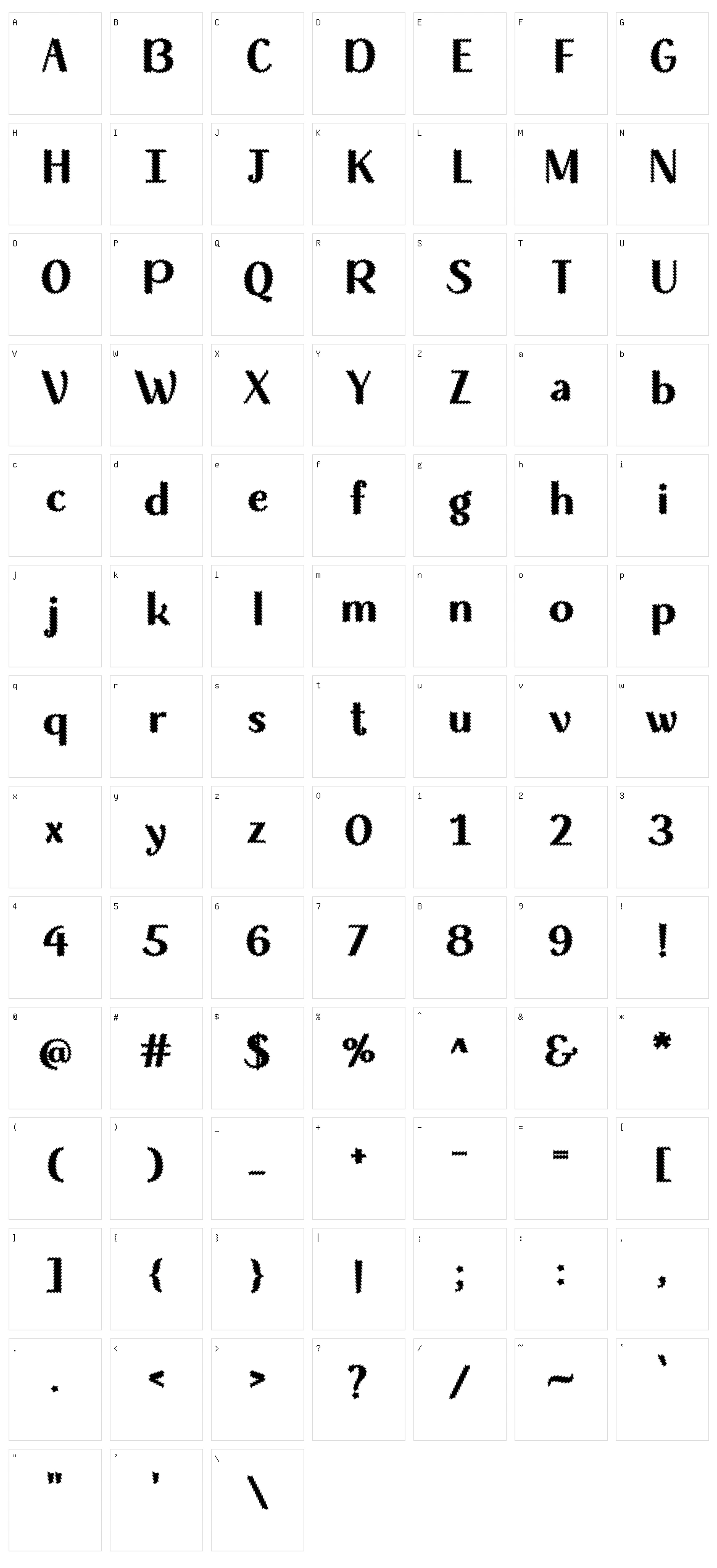
The free font Wicked Halloween is carefully designed by Misti's Fonts, showcasing a thoughtful balance of creativity and usability and falls under the Halloween font style. When you download the ZIP file, it contains only 161.33 KB of font files, making it lightweight and quick to download. Please review the license details below to understand permitted usage and distribution rights. If license information is not available, we recommend using this font for personal projects only or contacting the author directly for commercial usage permissions.